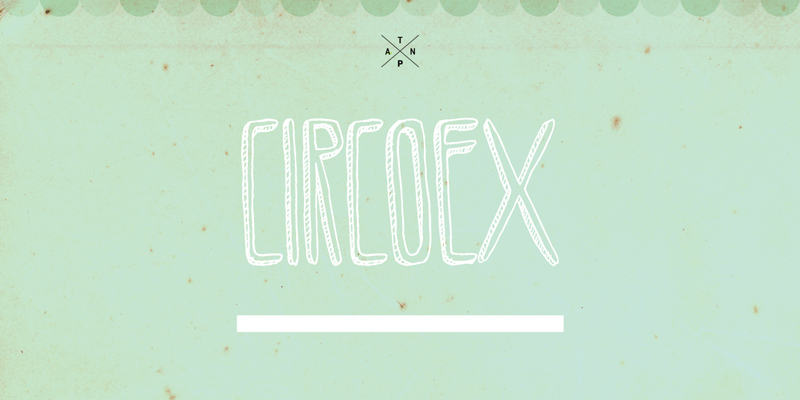
Circoex by Julia Martinez Diana of Antipixel is a free cartoon display font with lanky, uneven capitals and a sketched three-dimensional finish. Loose outer contours keep the forms lively, and the close-set strokes make the alphabet feel crowded in an intentional, comic way. Diagonal hatching supplies depth without turning the letters into solid, weighty shapes.
Circus entertainment and offbeat comedy are its clearest territory, making it useful for festival posters, children's publishing, snack packaging, and bright playful merchandise. It is especially convincing in a poster title, where the tall letters can function like a row of slightly crooked hand-drawn props.